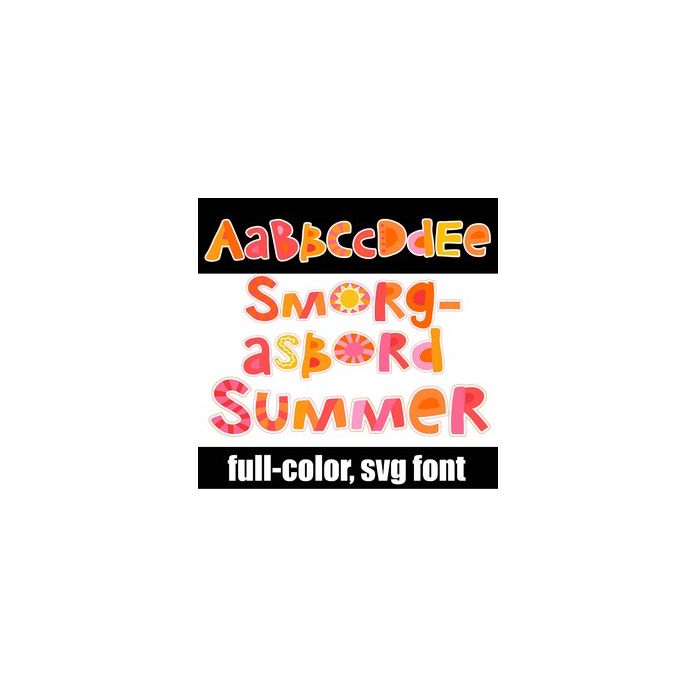
This full-color font features a colorful, patchwork lettering with summer colors. There is an alt case w/ additional colors you can access through your system or Silhouette's glyph map.